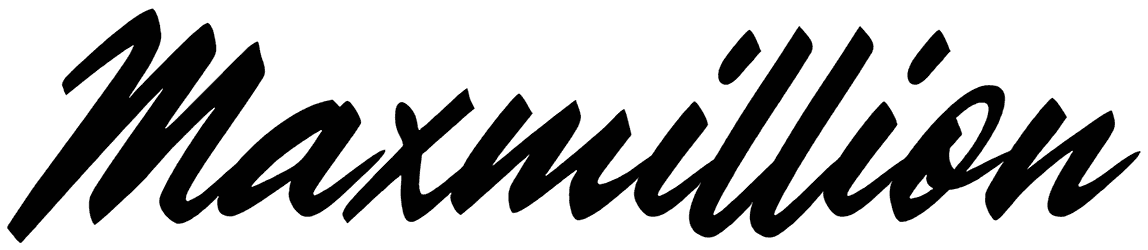
Maxmillion Font
To convey a cool and realistic vibe to your viewers, we offer to set this 80s font and see the last draft. The Maxmillion font’s letters are curvy and classic, but numerals are not available. Test this brush font for your next projects, such as a party invitation flyer, and have a ravishing presentation.